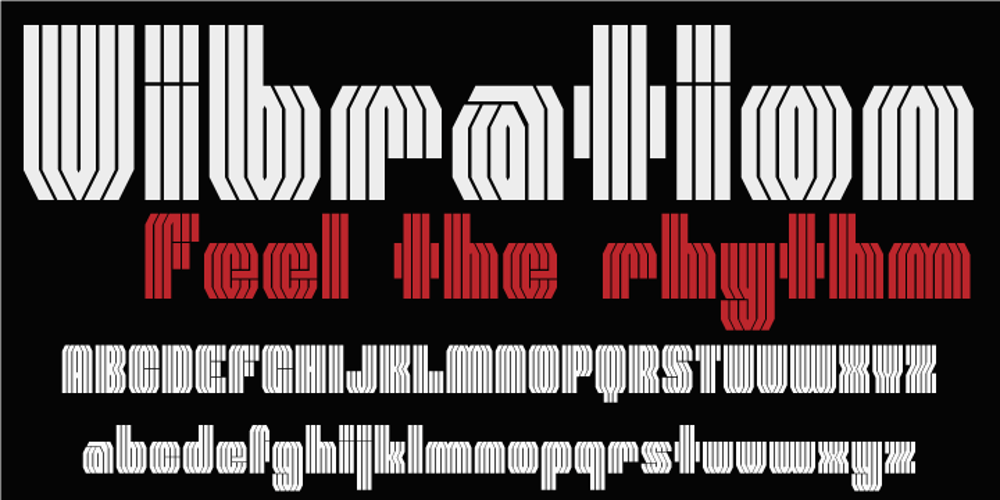
Vibration
Vibration font
Vibration Font Family was designed by Wilson Thomas and published by Funk King. Vibration contains 1 styles and family package options. Vibration is a modular font. Use it to give energy to your designs.